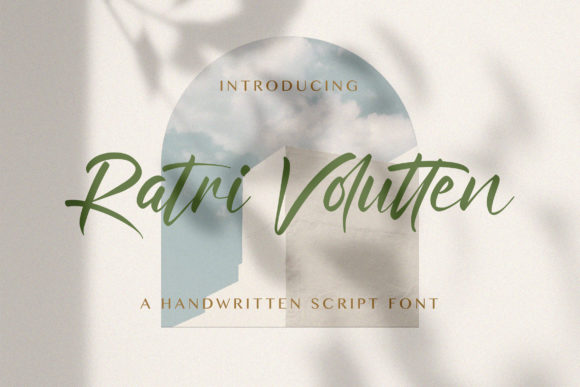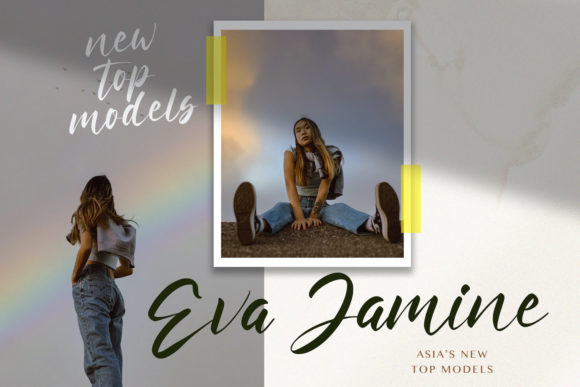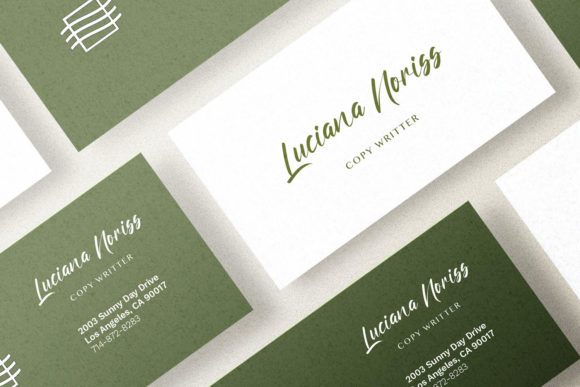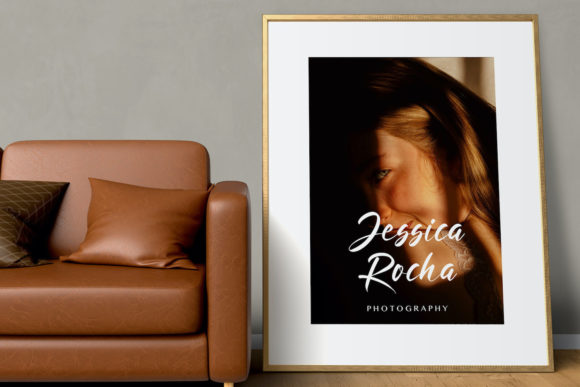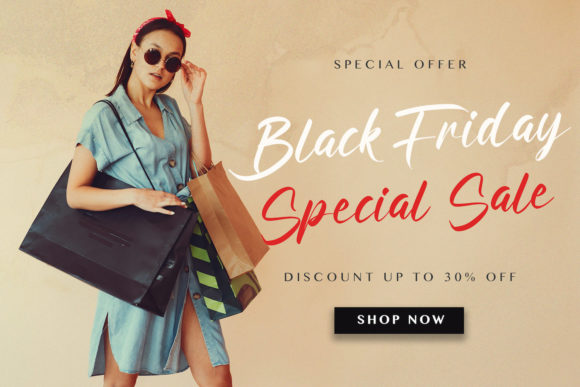
Ratri Volutten Font
About Ratri Volutten Font
Ratri Volutten is a cursive and naturally charming handwritten font. It has beautifully rounded characters and an exquisite charm that will definitely elevate the look of all your projects!